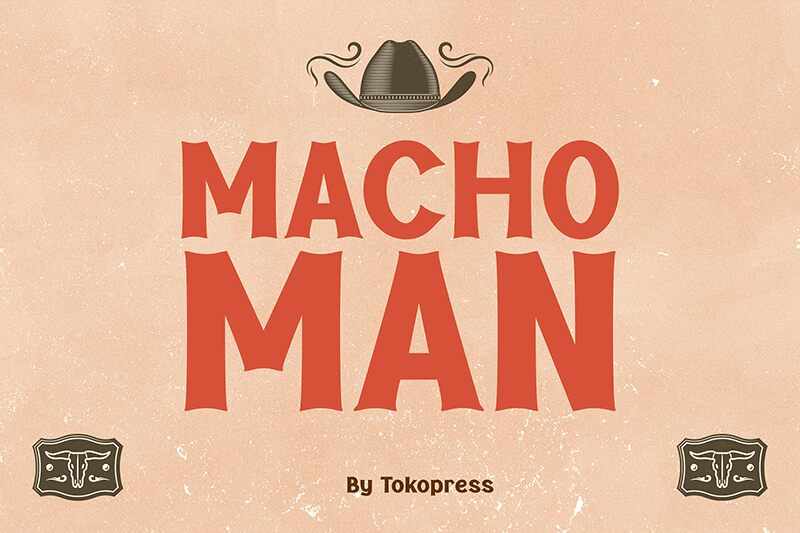
MACHOMAN
Machoman font by Tokopress is a free retro display typeface. Its heavy, carved forms and slightly concave strokes feel like ink pressed into wood, giving every word a bold, poster-ready thump. The flared edges and tight rhythm add swagger without turning messy, so it reads with impact while keeping a handmade vibe.
Using Machoman, headlines snap on event posters, throwback sports titles, bar signage, rugged packaging, and vintage-themed merch. This free font loves big sizes and short phrases; add a touch of tracking for air. For body copy, pair it with a neutral grotesque sans to keep the focus on Machoman’s punch.